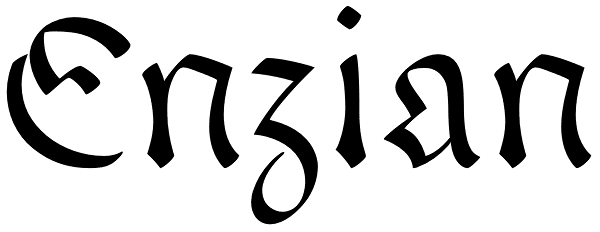
Enzian
Enzian is the fruit of a yearlong German Chancellor Fellowship sponsored by the Alexander von Humboldt Foundation. Our hope was simple: to make something useful and beautiful out of something that most people consider to be neither. We were...